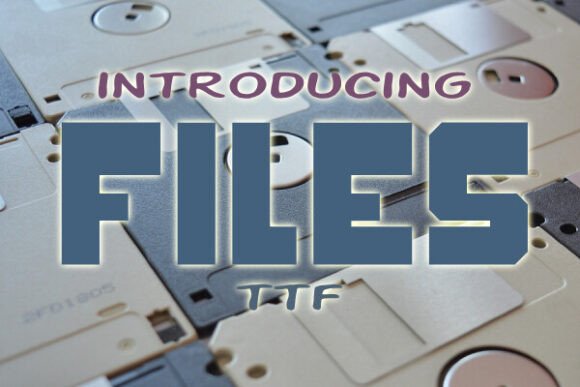
Files Font: The Ultimate Techno Font for Your Design Projects
Are you looking for a font that can elevate your design projects to the next level? Look no further than Files Font, an awesome techno font that is perfect for a wide range of applications. In this article, we’ll take a closer look at Files Font, its features, and how you can use it to create stunning designs for posters, flyers, t-shirts, and more.
What is Files Font?
Files Font is a techno font that is designed to be versatile and adaptable. Its clean and modern design makes it perfect for use in a variety of contexts, from digital media to print materials. The font is highly legible, even at small sizes, making it ideal for use in body text or headings.
One of the standout features of Files Font is its unique and futuristic design. The font has a distinctive look that is reminiscent of sci-fi movies and video games. This makes it perfect for designers who want to create designs that are edgy and modern.
Why Use Files Font?
There are many reasons why Files Font is an excellent choice for your design projects. Here are just a few:
- Versatility: Files Font is highly versatile and can be used in a wide range of contexts, from posters and flyers to t-shirts and digital media.
- Legibility: The font is highly legible, even at small sizes, making it perfect for use in body text or headings.
- Unique Design: Files Font has a distinctive and futuristic design that will help your designs stand out from the crowd.
Design Ideas Using Files Font
Files Font is a versatile font that can be used in a wide range of design projects. Here are a few ideas to get you started:
Posters
Files Font is perfect for creating eye-catching posters for movies, concerts, or events. Its bold and futuristic design makes it perfect for grabbing attention and creating a lasting impression.
Flyers
Files Font is also great for creating flyers for businesses, events, or promotions. Its clean and modern design makes it easy to read and understand, even at small sizes.
T-Shirts
Files Font is a great choice for designing t-shirts, whether you’re creating a logo, slogan, or message. Its bold and futuristic design makes it perfect for creating eye-catching and memorable designs.
Font Pairing Ideas
Files Font can be paired with a variety of other fonts to create stunning designs. Here are a few ideas:
- Montserrat: Montserrat is a clean and modern sans-serif font that pairs well with Files Font. Use it for body text or headings to create a cohesive look.
- Open Sans: Open Sans is a popular sans-serif font that is highly legible and versatile. It pairs well with Files Font and can be used for body text or headings.
- Lato: Lato is a clean and modern sans-serif font that has a distinctive look. It pairs well with Files Font and can be used for headings or titles.
Tips and Tricks for Using Files Font
Here are a few tips and tricks for using Files Font:
- Experiment with font sizes: Files Font is highly legible, even at small sizes. Experiment with different font sizes to create visual interest and hierarchy.
- Use font weights: Files Font comes in different font weights. Use them to create contrast and visual interest in your designs.
- Pair with images: Files Font pairs well with images and graphics. Use it to create stunning designs that combine text and images.
Files Font is an awesome techno font that is perfect for a wide range of design projects. Its clean and modern design makes it highly legible and versatile. With its unique and futuristic design, Files Font is sure to elevate your designs to the next level. Whether you’re creating posters, flyers, t-shirts, or digital media, Files Font is a great choice.